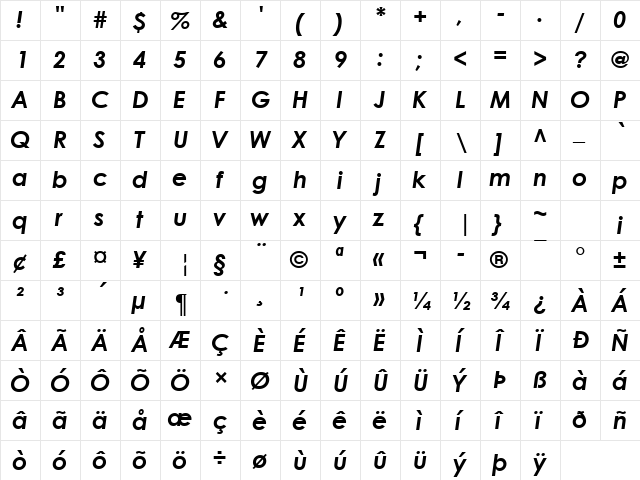
Century Gothic Bold Italic
| Foundry | Monotype Typography, Inc. |
| Designer | Monotype Type Drawing Office |
Design Context for Century Gothic Typeface
Century Gothic has the quiet confidence of well-executed sans-serif typography: versatile, unobtrusive, and dependable at any size. The slanted form adds forward momentum and visual energy. Its bold stroke weight gives it real presence on the page.
Well-suited to navigation labels, product packaging, and anywhere legibility at scale is essential.
Font Pairing: Use Century Gothic for headlines alongside a lighter-weight sans or serif for body copy to establish clear visual hierarchy.
Pro Tip: Use Century Gothic for UI labels, navigation, and short-form body copy where clean legibility is the priority.